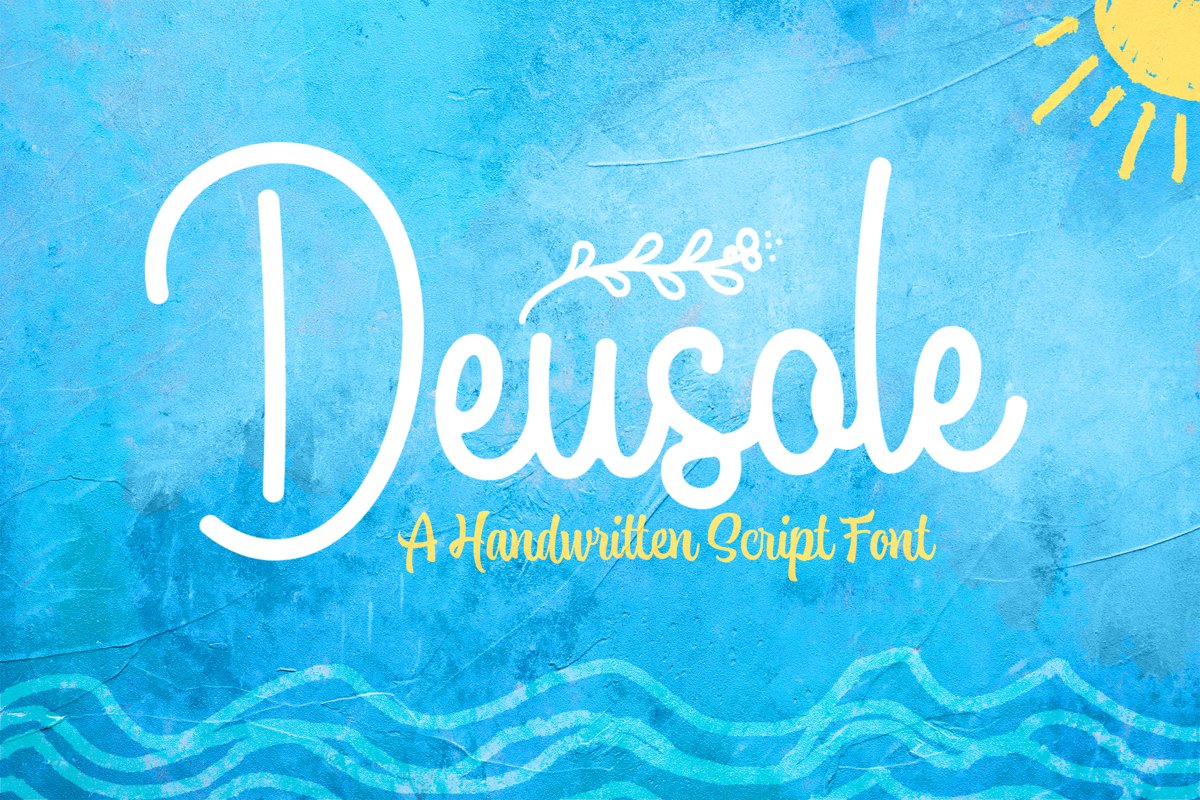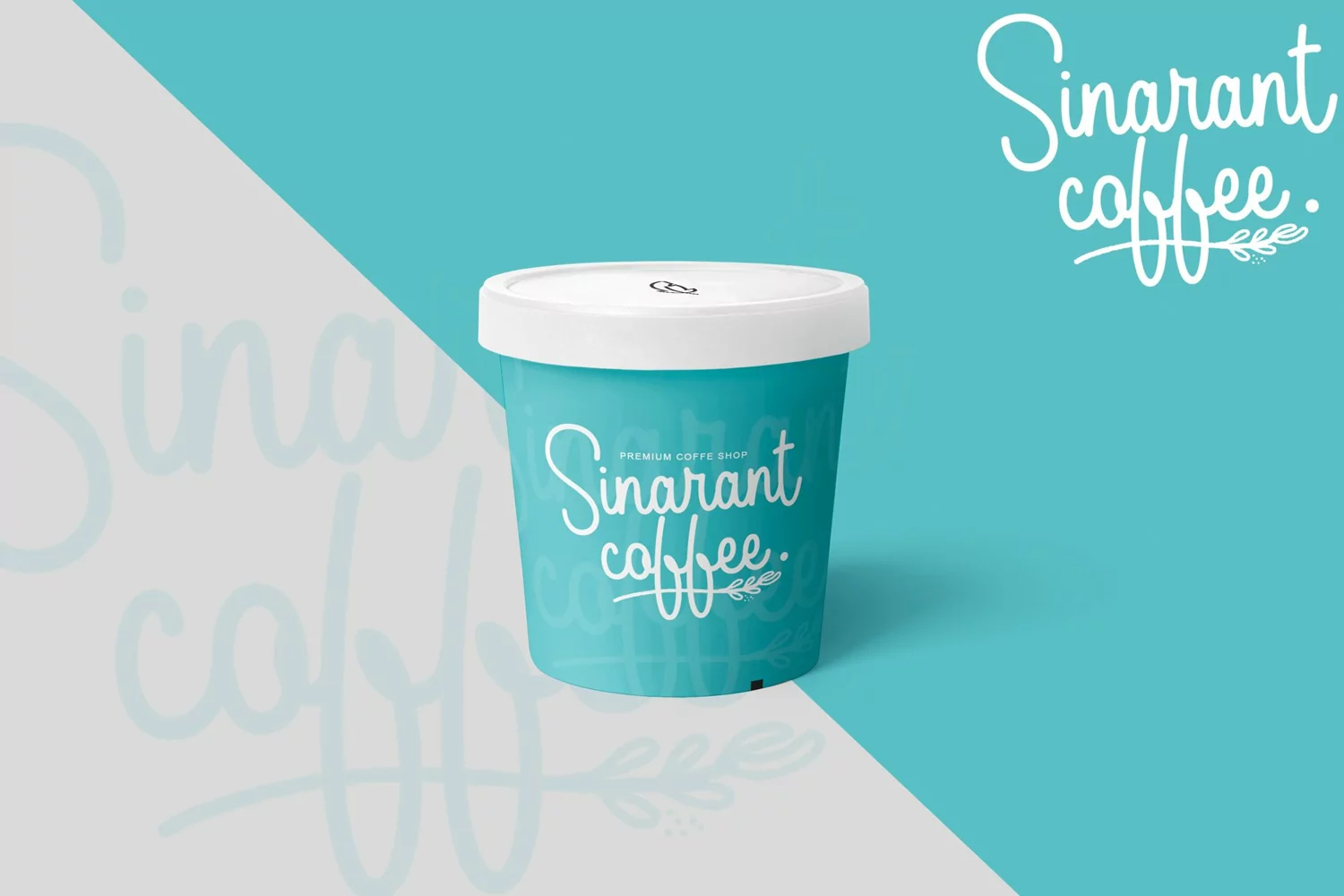
Deusole Script is a hand lettering script typeface. Perfect for display, poster, quotes, crafting needs, florist needs, wedding needs, business card, signature, packaging, merchandise, branding, logo, logotype, header, tittle, and many more.